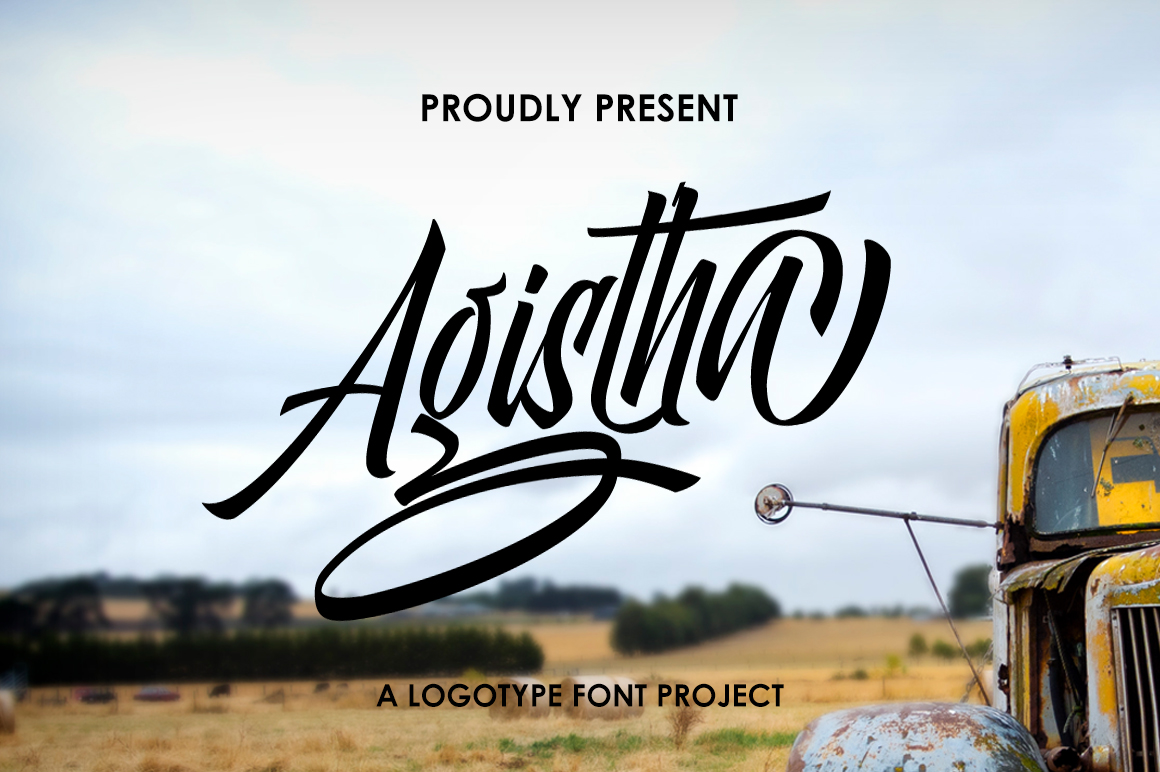
Agistha
Aghista Script is a new smooth font was vectored with careful. I make this font to follow the trend in the manufacture of logotype & typography. This font was completely with 99 alternate characters, very perfect for logotype, typography, t-shirt design, etc